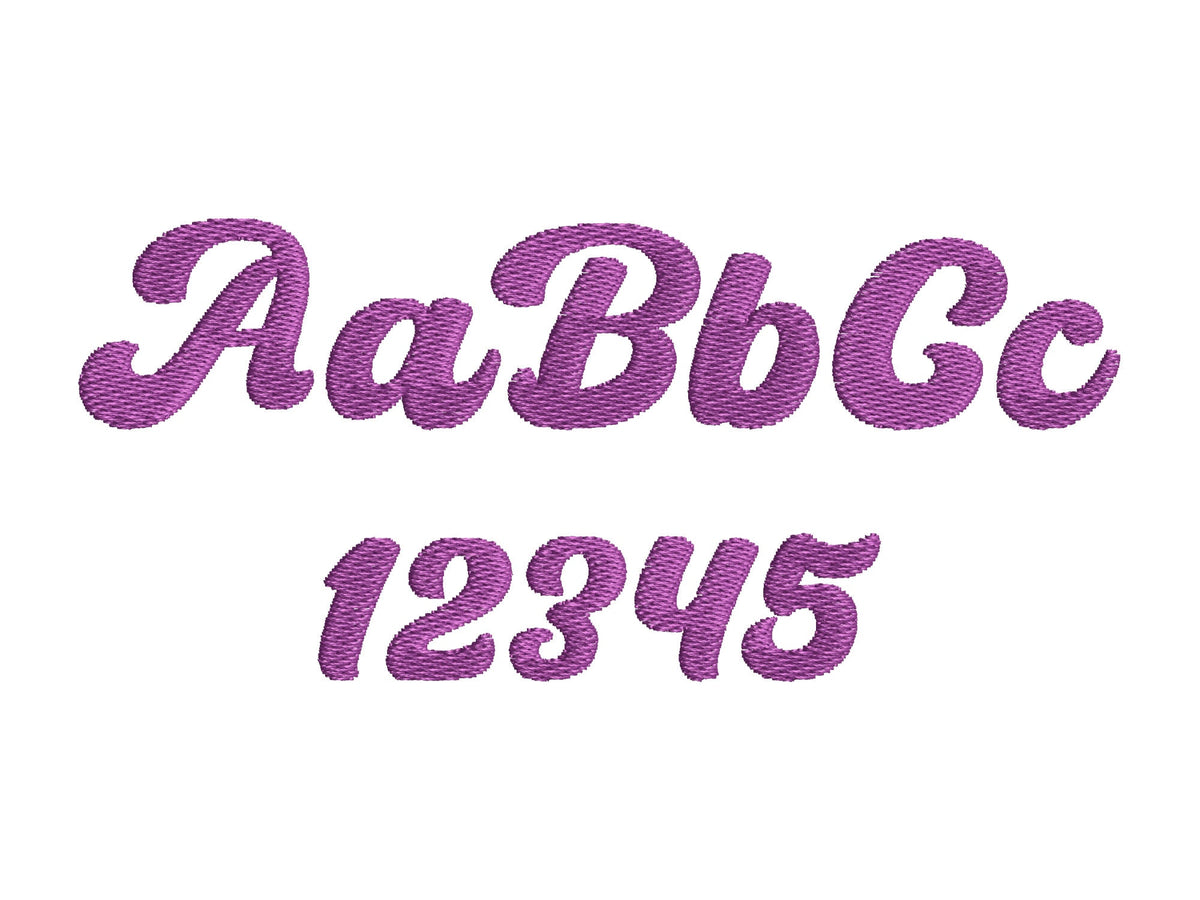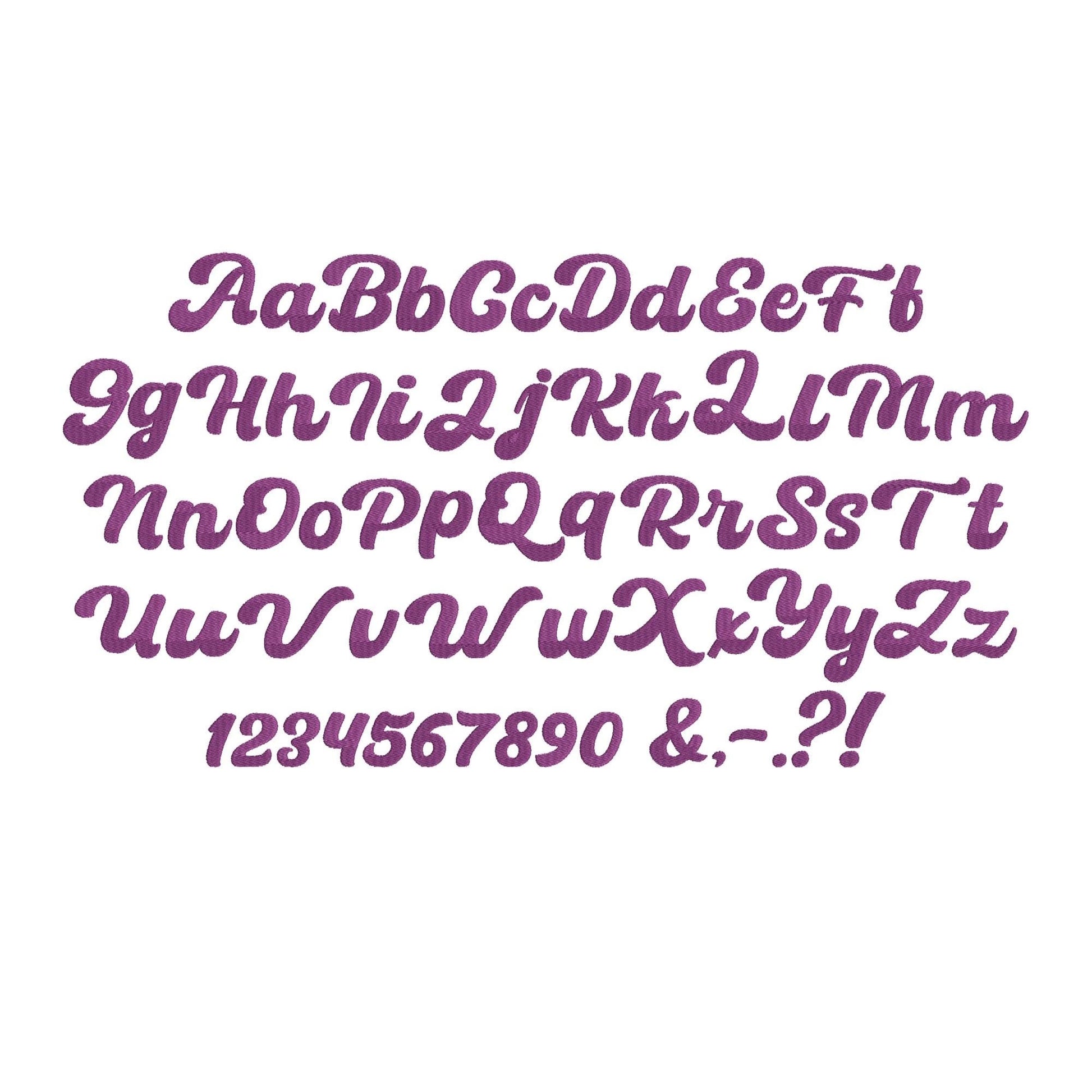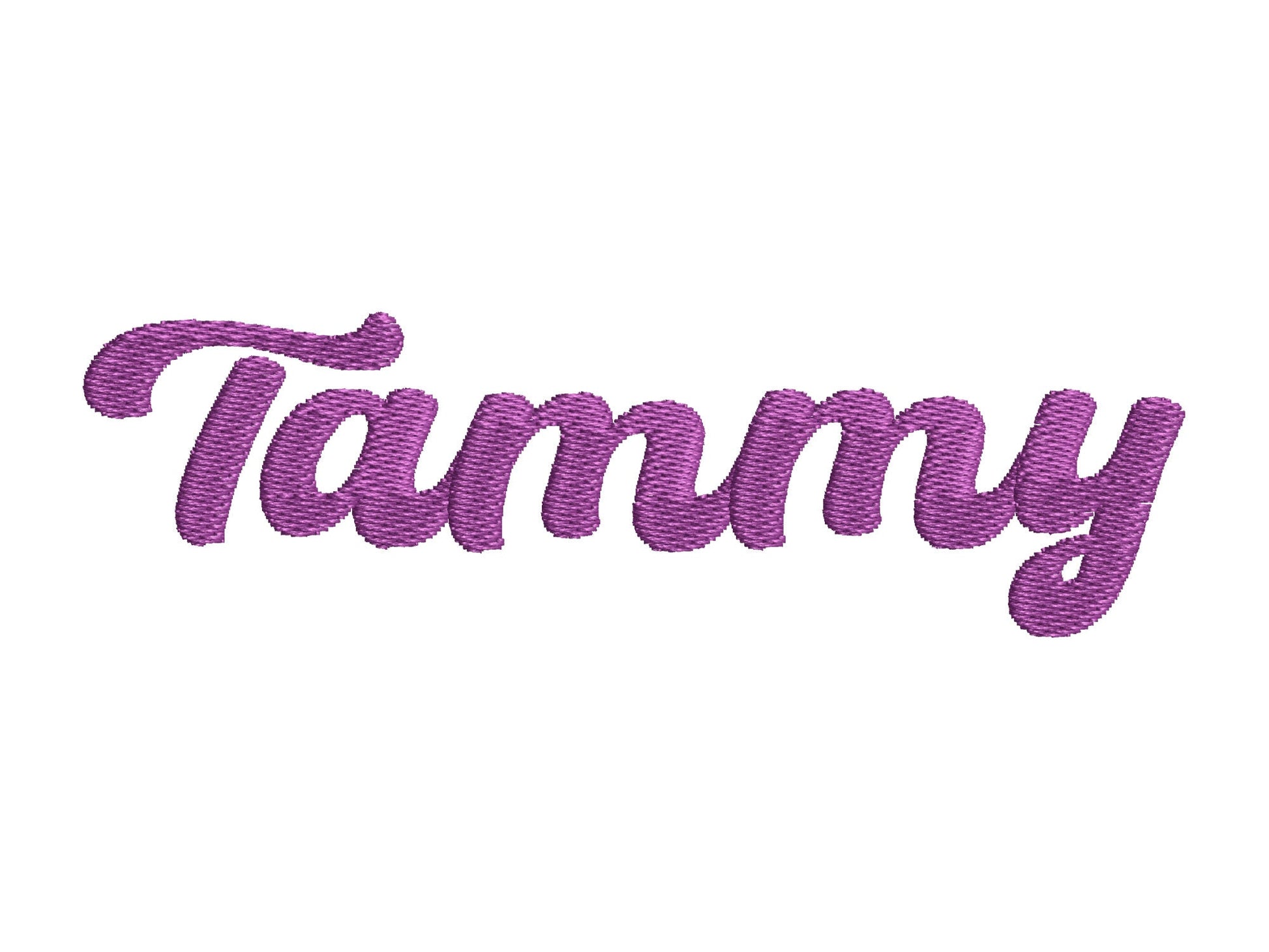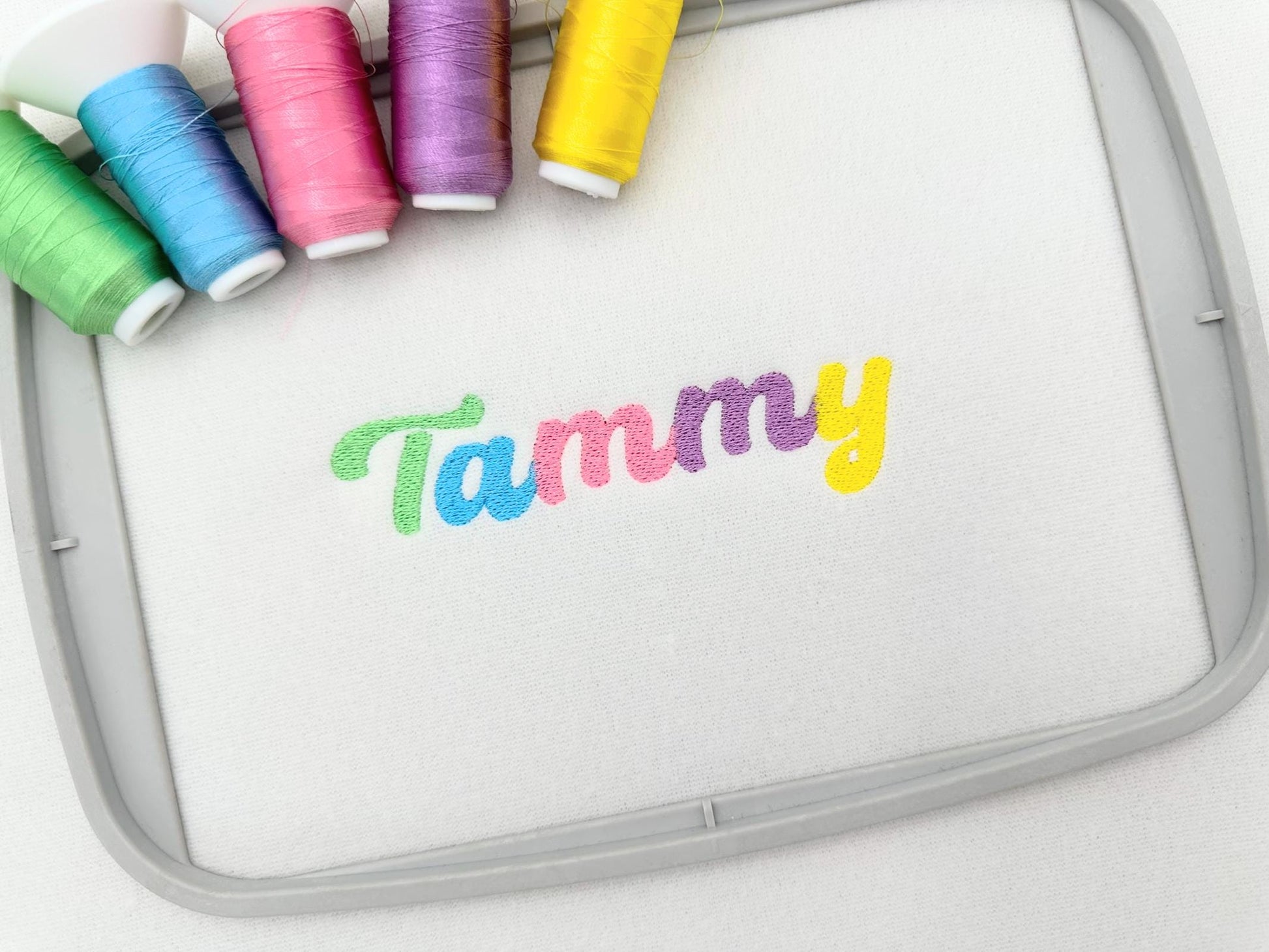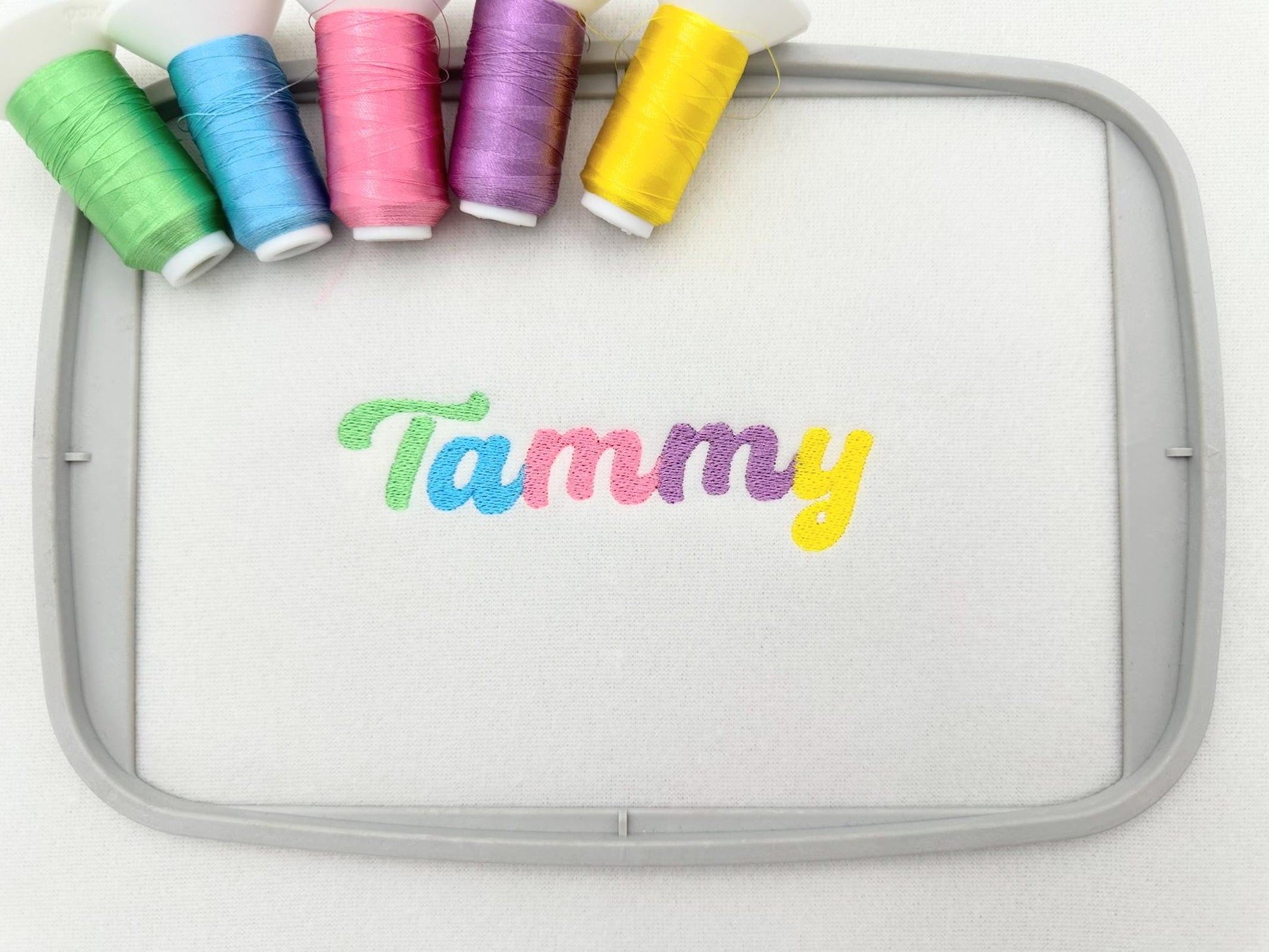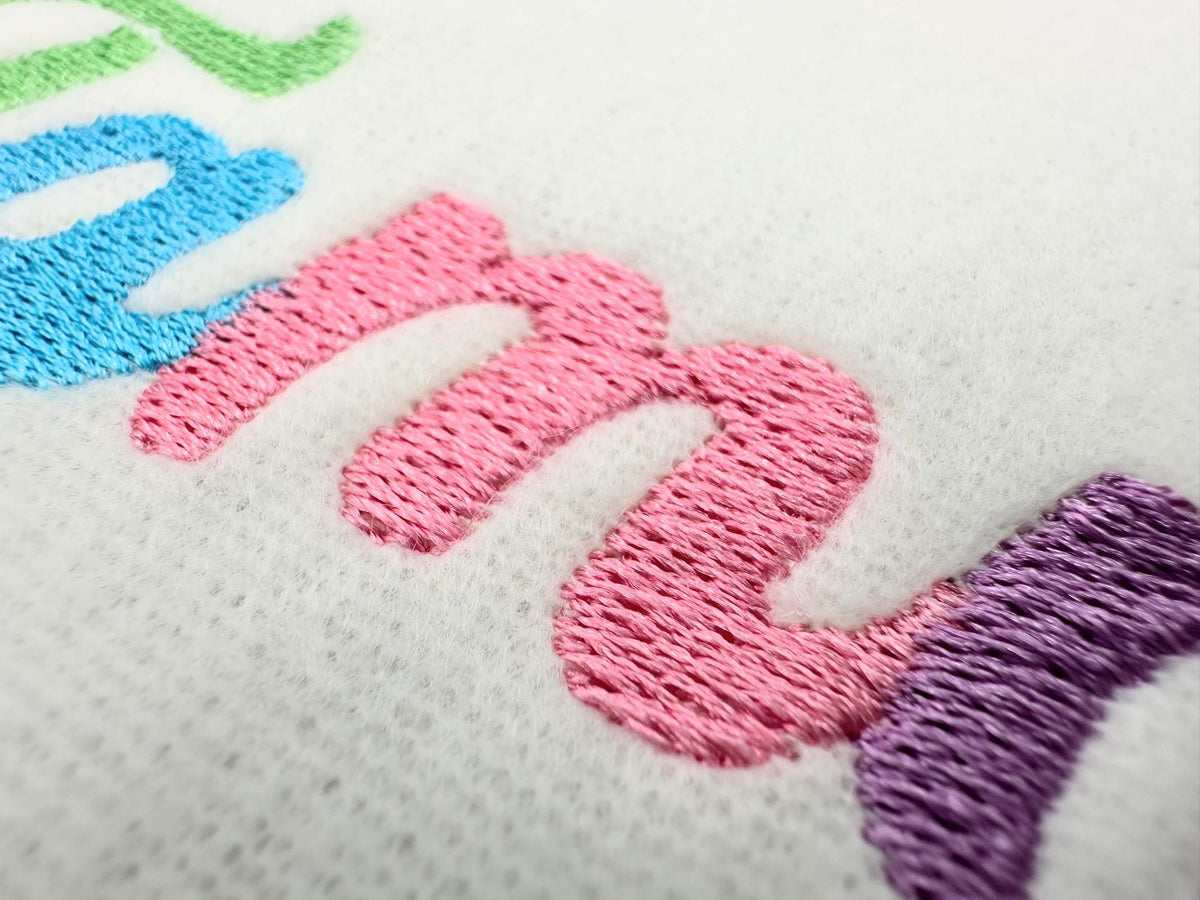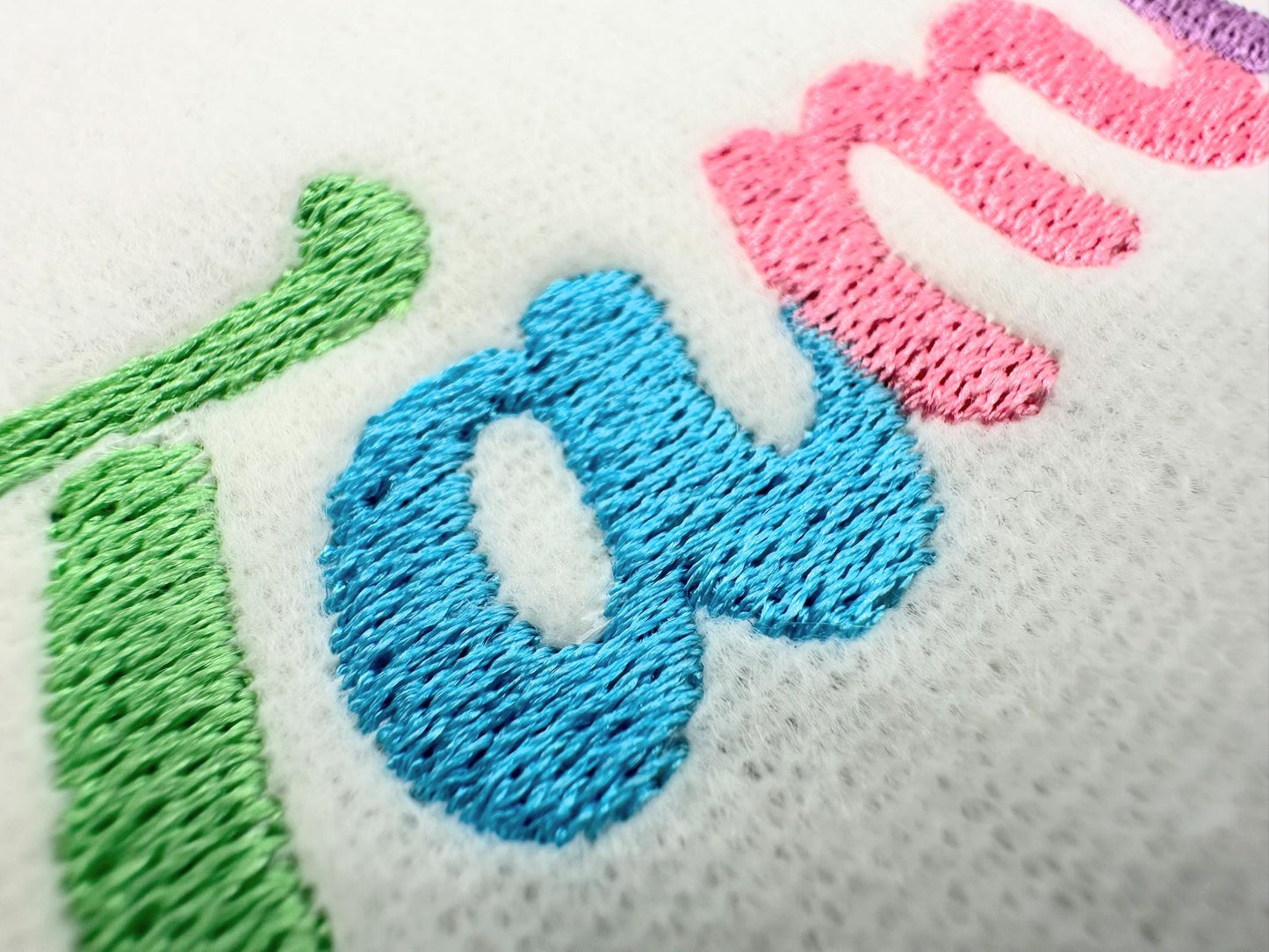
Fill Stitch Script Font
The letters come in five mini sizes: 0.6, 0.8, 1, 1.3 and 1.7 inches. Solid fill stitch script letters. Includes uppercase and lowercase letters, numbers 0 to 9 and punctuation.
- Fill stitch script font
- 5 sizes, 0.6 to 1.7 in